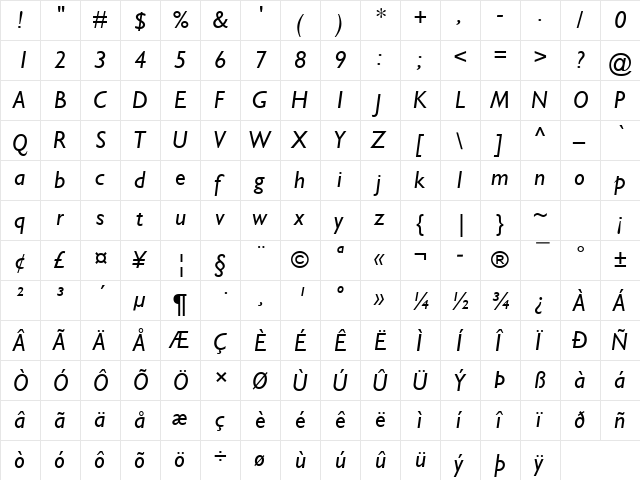
Gill Sans MT Italic
| Foundry | Monotype Typography |
| Designer | Eric Gill |
Design Context for Gill Sans MT Typeface
Gill Sans MT is a composed and adaptable typeface that performs quietly and consistently across a wide range of design contexts. The dynamic lean of this cut emphasises speed and emphasis in any layout.
Pro Tip: Use Gill Sans MT for emphasis, pull quotes, and subheadings where its slanted energy can add rhythm to the layout.